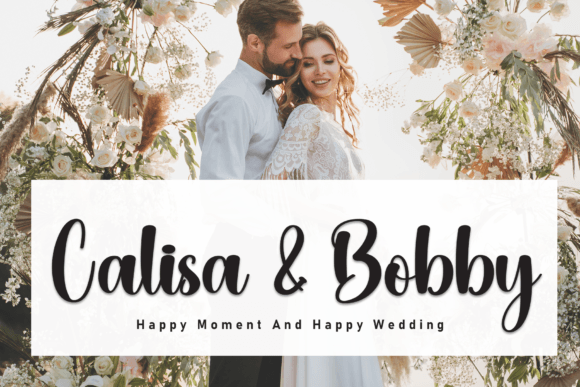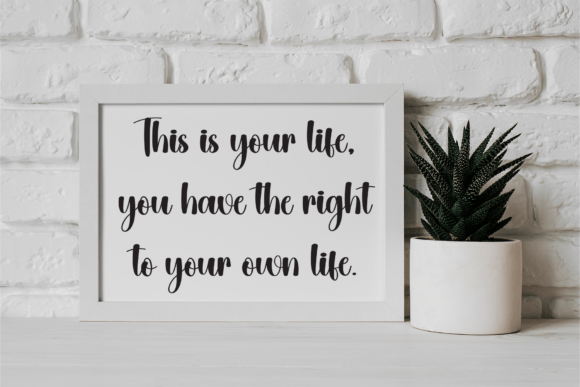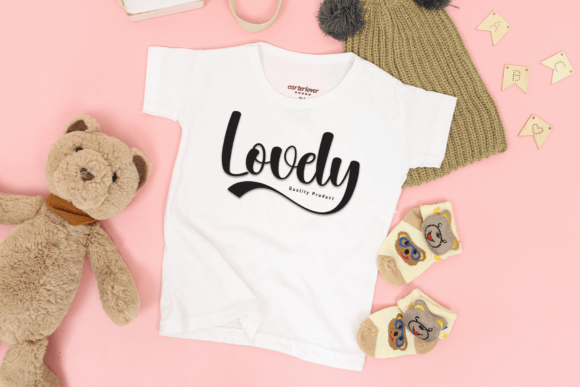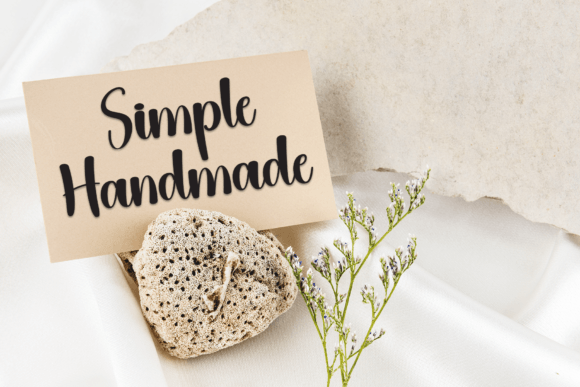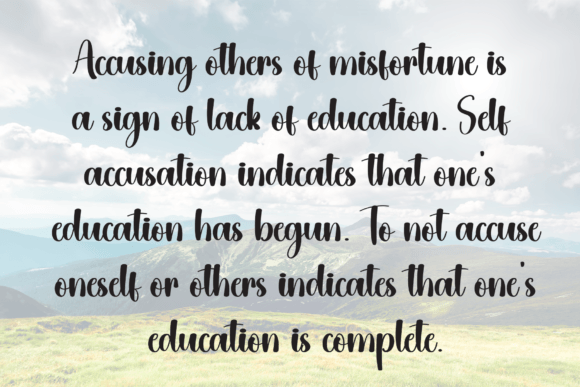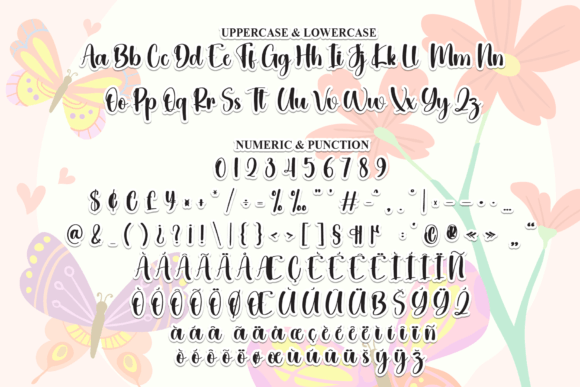
Where Words Take Flight: The Enchanting World of Butterfly Font
Have you ever sat down with a blank page and a pen, letting your thoughts flow freely onto the paper? The moment when words start to dance across the page, forming a story that’s uniquely yours, is one of pure joy. It’s a feeling that designers and creatives strive to capture, and that’s exactly what the Butterfly Font does – it brings that effortless elegance to the digital world.
With its fluid, cohesive strokes and friendly appearance, the Butterfly Font is perfect for personal blogs, heartfelt invitations, and boutique branding. Whether you’re a seasoned designer or just starting out, this charming handwritten font is a valuable addition to your toolkit. It adds a personal, approachable touch to any creative project, making it a must-have for anyone looking to make a lasting impression.
Key Features of Butterfly Font
- Font Family: Butterfly Font is a unique, hand-drawn script font that features elegant and whimsical letterforms.
- Unique Characteristics: Butterfly Font features a range of unique characteristics, including swashes, ligatures, and contextual alternates, which add a touch of personality to any design.
Designer Review: Butterfly Font
As a designer, I was initially drawn to the whimsical and playful nature of the Butterfly Font. ✨ The flowing lines and organic shapes evoke a sense of freedom and movement, making it perfect for projects that require a touch of elegance and sophistication.
The font’s high x-height and moderate contrast make it highly legible, even at small font sizes. ✨ This is a major plus for designers who need to convey information quickly and effectively. Additionally, the font’s range of weights and styles offers a lot of versatility, allowing designers to create unique and visually appealing typography.
- ⚠️ The font may not be the best choice for projects that require a more formal or corporate tone, as its playful nature may come across as unprofessional.
- ⚠️ The font’s high x-height can sometimes make it difficult to pair with other fonts, as it may compete for attention.
Overall, I would give the Butterfly Font 4 out of 5 stars. While it excels in many areas, its limitations should be taken into consideration before using it for a project. With careful selection and pairing, however, the Butterfly Font can add a touch of magic to any design.
Tips for Getting the Most Out of the Butterfly Font
To get the most out of the Butterfly Font, consider the following tips:
- Use the font in conjunction with bold or italic text to add emphasis to your design.
- Experiment with different font sizes to create visual interest.
- Pair the font with a clean and simple background to let the text take center stage.
Common Use Cases for the Butterfly Font
The Butterfly Font is commonly used in:
- Children’s book illustrations and designs.
- Food and beverage branding and packaging.
Alternatives to Butterfly Font for Designers
Copperplate
Copperplate is a classic calligraphy font that is elegant and sophisticated. It is ideal for formal invitations, wedding stationery, and high-end branding. Copperplate is more ornate and refined compared to Butterfly Font, making it perfect for projects that require a touch of luxury.
Great Vibes is a beautiful, handwritten font that is perfect for adding a personal touch to designs. It is great for use in quotes, headings, and titles. Great Vibes is more casual and playful compared to Butterfly Font, making it ideal for projects that require a relaxed and friendly tone.
Lobster is a fun and quirky script font that is perfect for adding a touch of whimsy to designs. It is great for use in headings, titles, and social media graphics. Lobster is more bold and attention-grabbing compared to Butterfly Font, making it ideal for projects that require a fun and energetic tone.
Q: Is the Butterfly Font customizable?
Yes, the Butterfly Font is customizable, allowing you to adjust the font size, line spacing, and color to suit your design needs. Additionally, you can also use font editors or software to create custom variations of the font, such as bold, italic, or condensed styles.